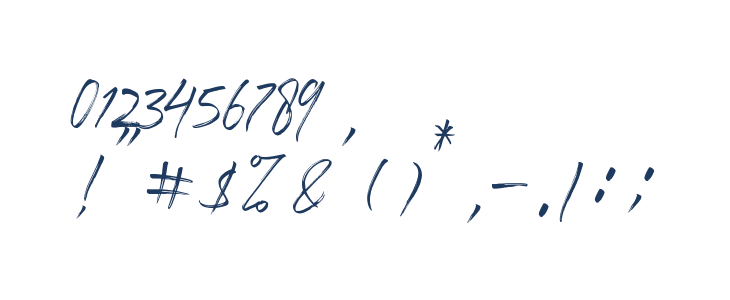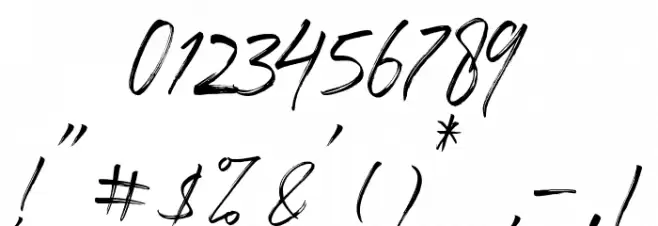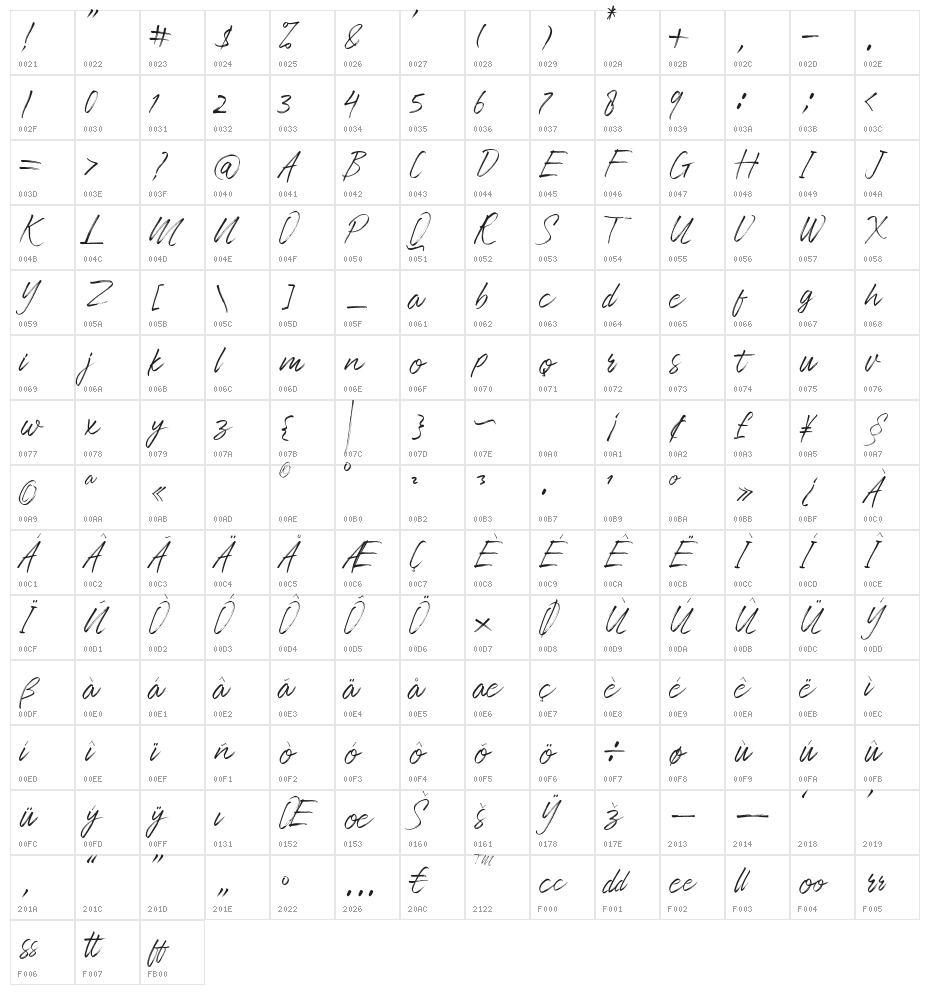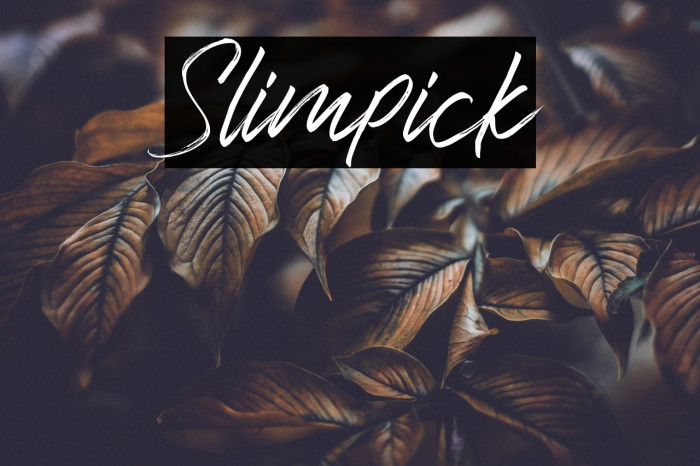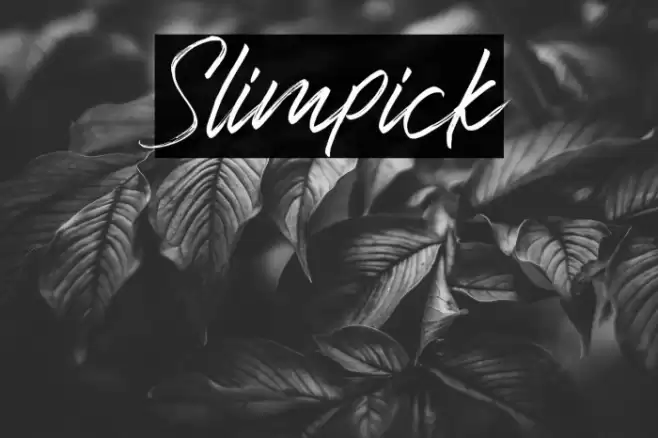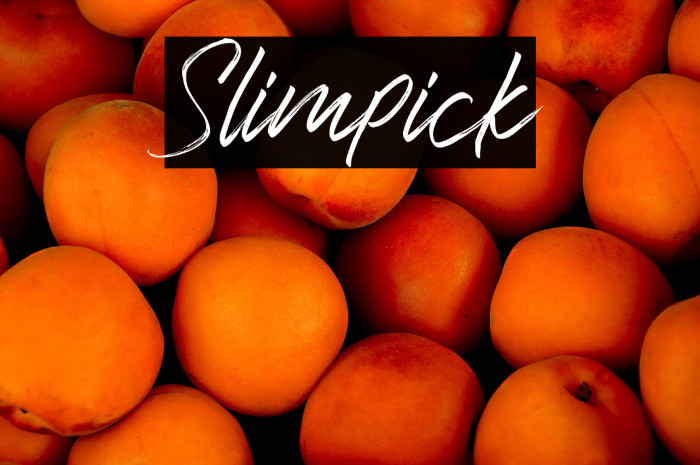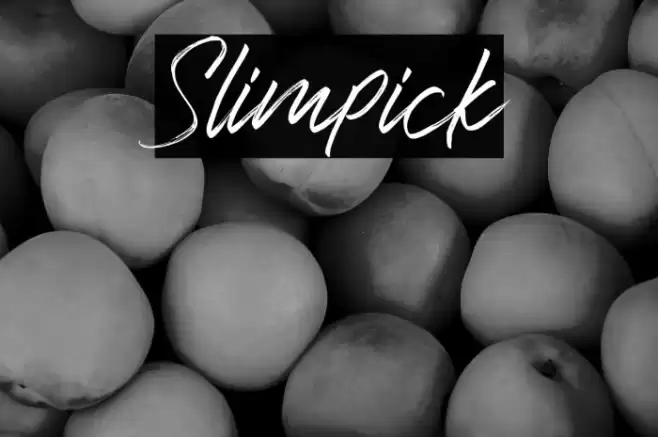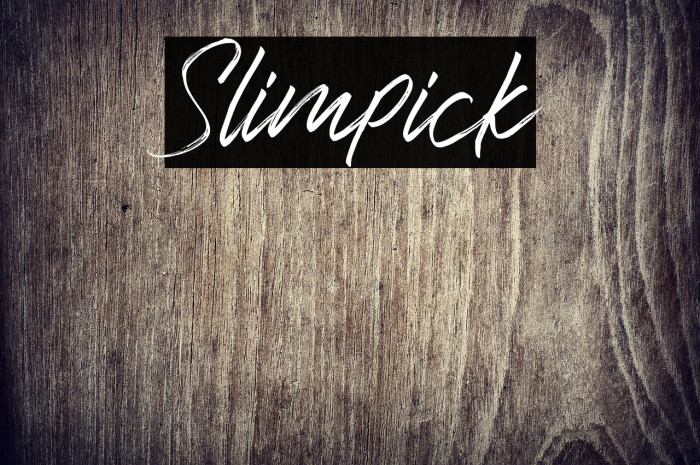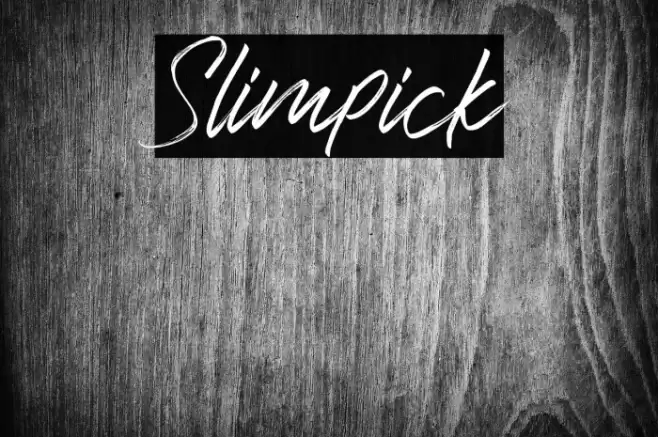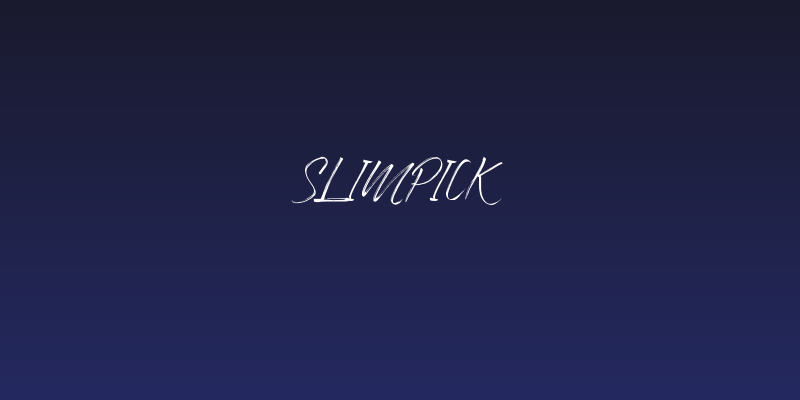
Slimpick Font
Slimpick Description
This font exhibits a dynamic and expressive handwritten style, characterized by its fluid and cursive strokes. The letters are slightly slanted, giving a sense of motion and elegance. The uppercase letters are bold and prominent, while the lowercase letters maintain a consistent flow with varying stroke widths. The numbers and special characters are crafted with the same attention to detail, ensuring a cohesive look across all characters. The overall appearance is artistic and modern, making it suitable for creative projects that require a personal touch.